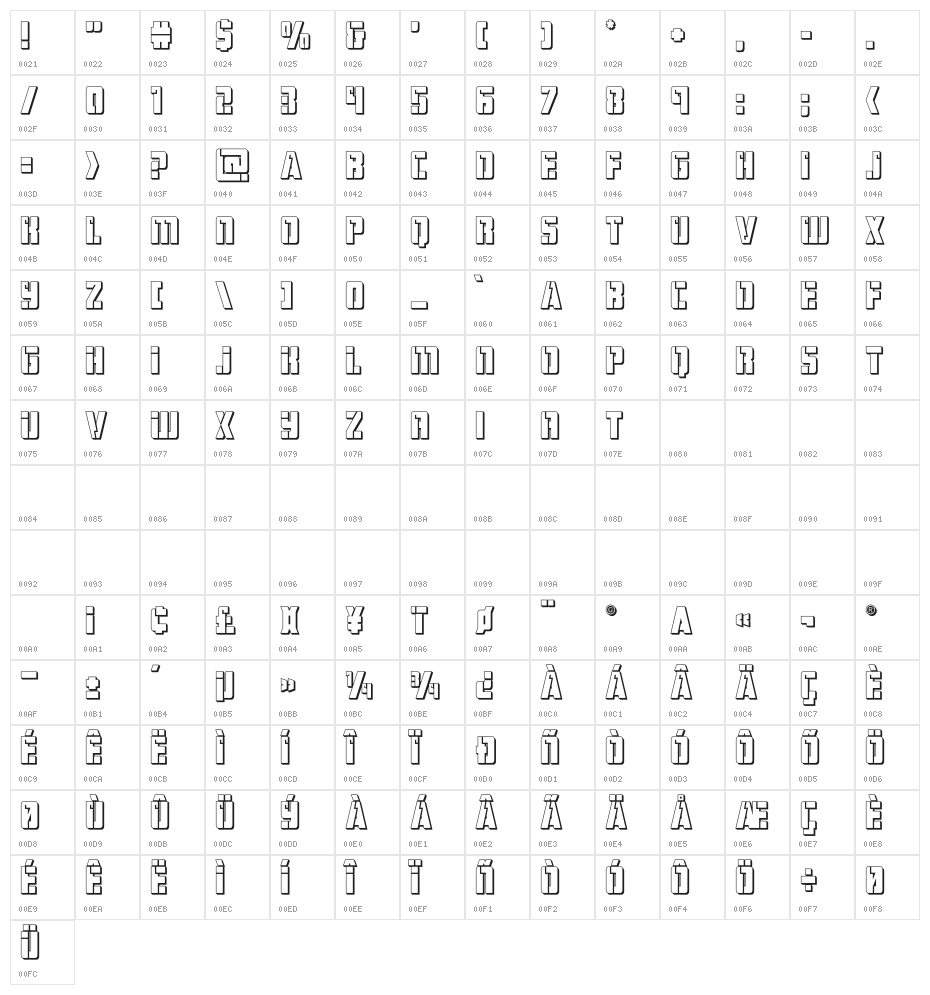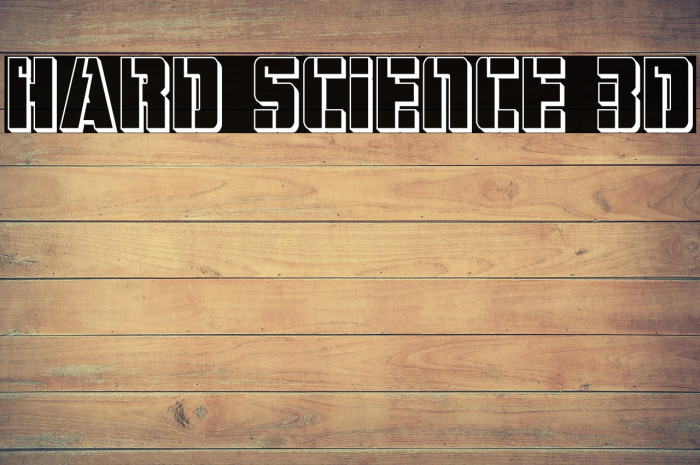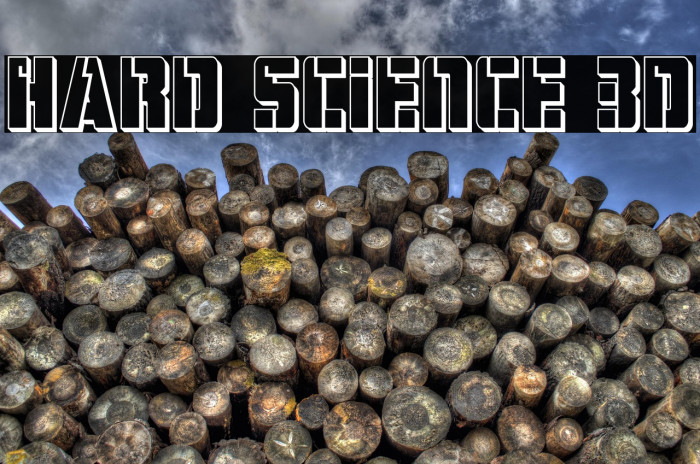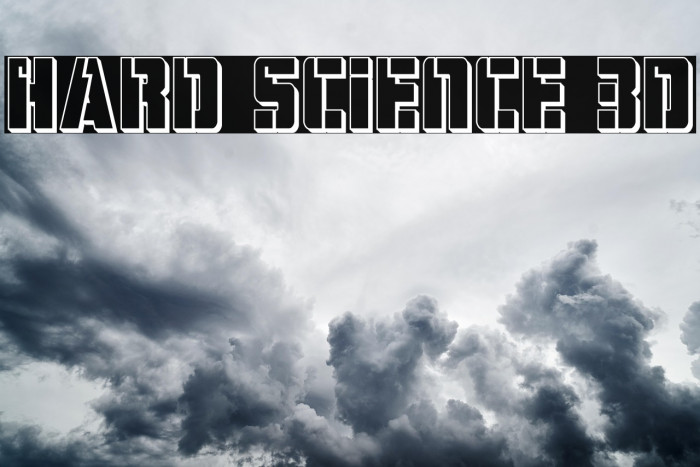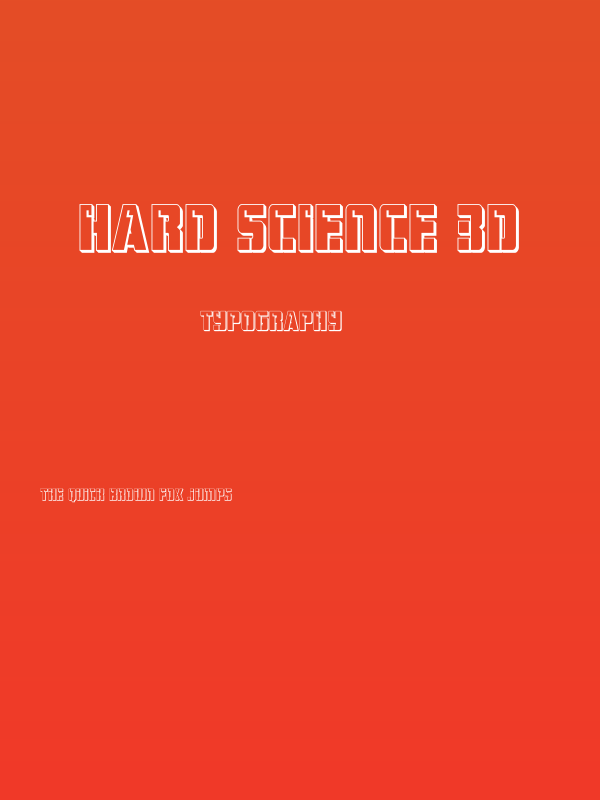
Hard Science 3D Font
Hard Science 3D Description
This font features a bold, three-dimensional design with a strong geometric structure. Each character is outlined with a thick black border, creating a striking contrast against the white interior. The letters are blocky and angular, giving them a futuristic and industrial feel. The uppercase and lowercase letters maintain a consistent style, with sharp edges and uniform width. Numbers and special characters follow the same design principles, ensuring a cohesive look across all glyphs. The font's 3D effect is achieved through strategic shading, adding depth and dimension to the characters.
| Overall Style | Futuristic, Industrial |
| Proposed Projects | Ideal for science fiction themes, tech branding, video game titles, and futuristic posters. |